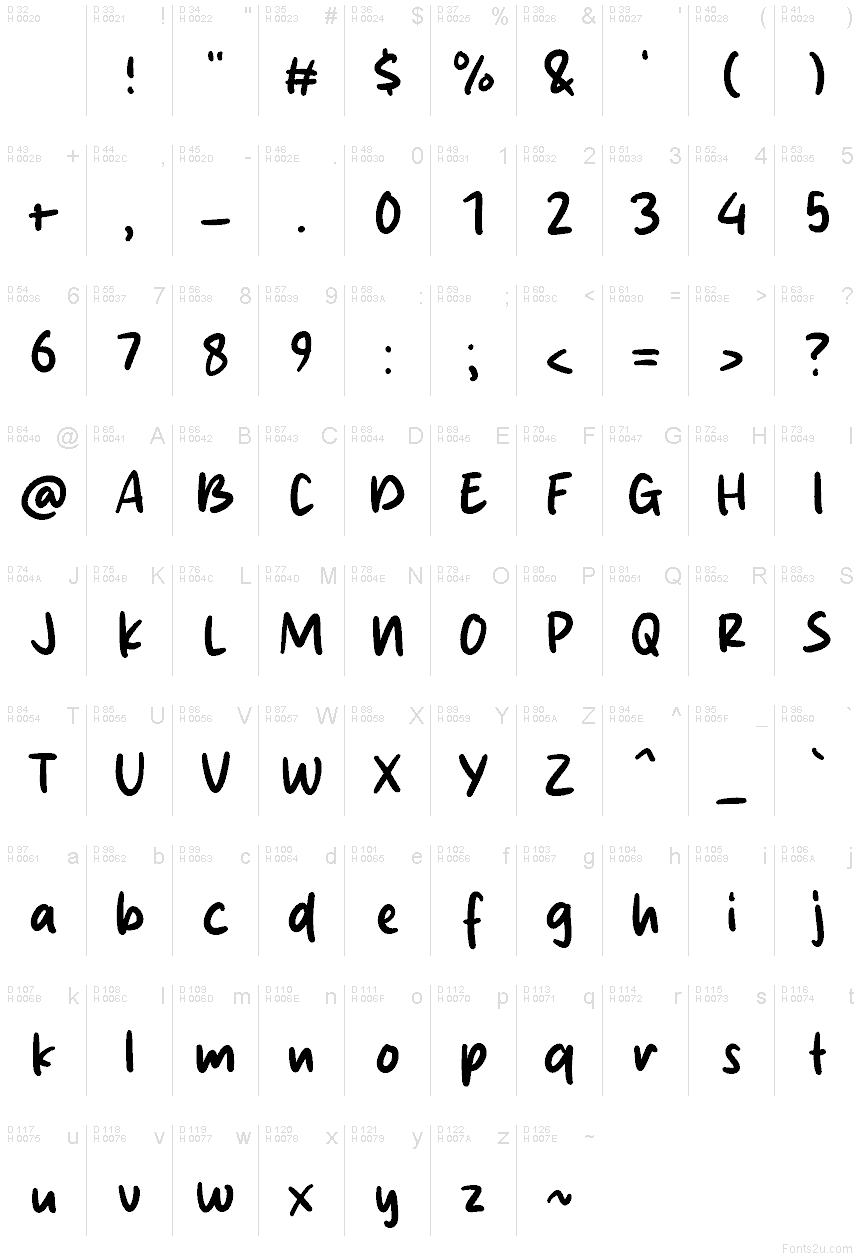
Citra Lemon
Citra Lemon font by Origin Type is a free brush script typeface that feels like it was painted straight onto a café chalkboard. Its rounded strokes, juicy curves, and slightly bouncy rhythm give it a soft, hand-lettered warmth without looking messy or rushed. The letters sit close and cozy, creating an instant sense of friendliness that suits anything playful, crafty, or food-related.
Using Citra Lemon, you can bring a casual, human touch to logos, product packaging, recipe cards, posters, social media graphics, and kids’ branding. This free font shines when set large for short phrases or headlines, where its inky texture and smooth flow can really breathe. For balance, pair Citra Lemon with a clean sans serif for body copy to keep your layouts readable and fresh.